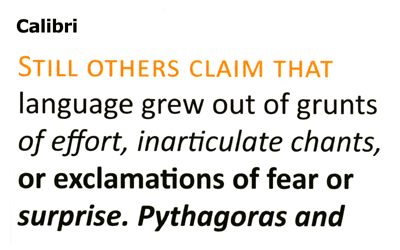
I hope this means the death of Arial and Times New Roman. The new fonts, looks a but like Adobe's offerings though. Consolas would be a nice touch.
Bill Gates wants computer users, well, Microsoft users, to have a more enjoyable on-screen reading experience -- so much so that he made improving reading on the screen one of his top five priorities.
Beginning in 2006, Microsoft says it will ship with its operating system and other software products six brand new typefaces created especially for extended on-screen reading.
Interesting. All characterised by large x-heights.
Agree with him about Candara, it's very fussy.
Wonder how Adobe will be viewing these if MS want to push these as standards esp. with this rumoured Metro thang.
p.s. Hope they manage to produce and support some decent ligatures. 😛
I quite like the Constantina italic. Corbel isn't bad either – I've come across Jeremy Tankard's stuff before. All in all, better than I expected.
Just for comparison:
Calibri first and Myriad after.
Exactly, I love Myriad, and when I saw these I got quite irked. But what do I know, I always use Myriad bolded. Too bad I don't have Myriad Pro Bold, I just have the normal and Black version. 🙁
after looking at those, i must say very good for something from m$. not that i know anything about fonts of course, other than "ooh, that one looks cool." what's serif vs. san serif? my favorite of those is consolas. seems such an improvement over courier (i guess that's what it's replacing.)
serif is like the nooks on the bottom of letters.
The letter I is good example.
Considering that "sans" = without...i think you can figure out the rest.
thanks. so like, ThIs is sans serif, but ThIs is serif?
Yep, that's right.
(For further clarification, put it this way: Times and Garamond are serif fonts; Arial and Helvetica are sans [that is to say "without"] serif.)
For on-screen viewing, I think Verdana is pretty good. It's not really a "pretty" font, but, it's very functional and easy to read at small sizes.
The new fonts MS is releasing, however, offer better choices, I think. They are more attractive to look at, but, also very readable for on-screen use. Why Adobe isn't on the forefront of this, I have no idea. I guess they are too preoccupied with buying Macromedia.
The WORSE on-screen font to use is Arial. Butt ugly and too dense.
I think that these fonts are actually pretty cool. This morning I printed a research paper and used Calibri for the headings and Corbel for the main body text, and it looks pretty good. If you're interested in seeing the fonts in use in a PDF, check out a draft of my research paper (warning, 1.2 MB file).
Here's an image of the two in a header and text comparison. Note the serif font Garamond doesn't look to read as well as it's counterpart myriad in this case. This is because at small sizes the weights of the serifs get lost as the font is pixelated while viewing on a screen. However on paper, this wouldn't be an issue.